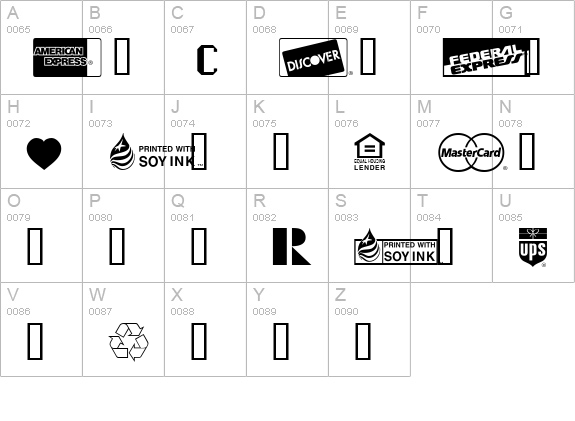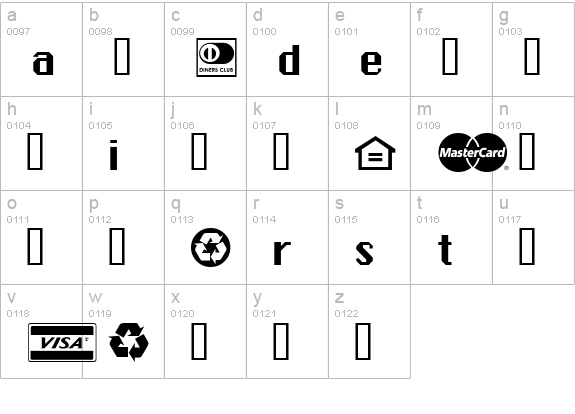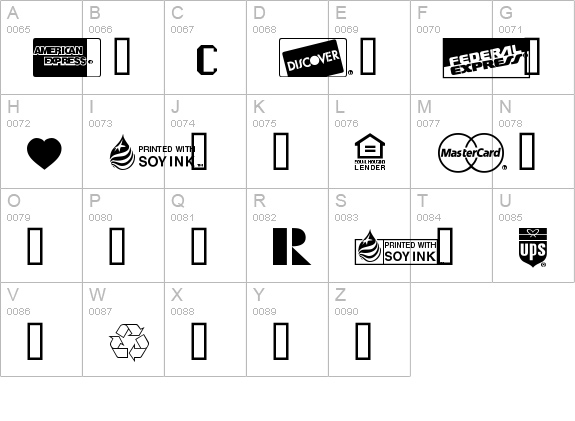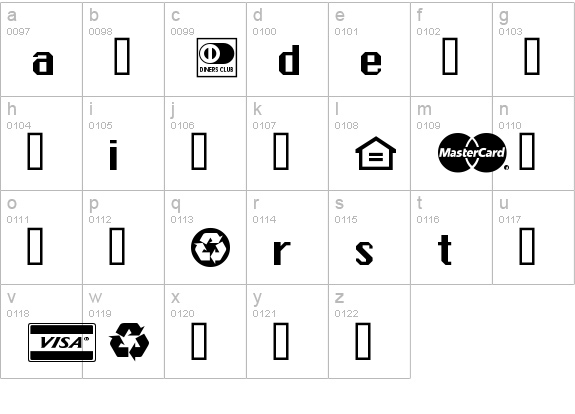
Introducing Credit Cards font, a sleek and modern typeface perfect for all your design needs. With its clean lines and contemporary style, Credit Cards font adds a touch of sophistication to any project. This versatile font is ideal for headlines, logos, branding, and more. Best of all, Credit Cards font is completely free to download at FontsMarket.com! Take advantage of this amazing offer and enhance your designs with this elegant and professional font. Don't miss out on the opportunity to elevate your work with Credit Cards font today!